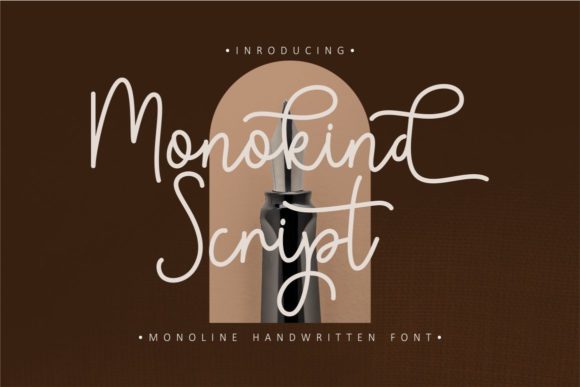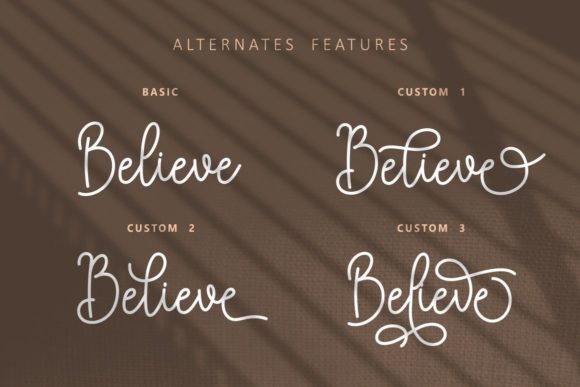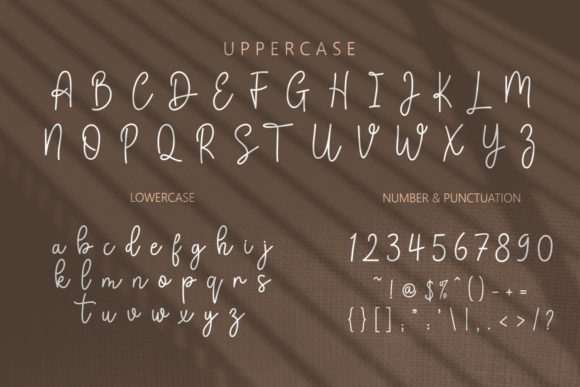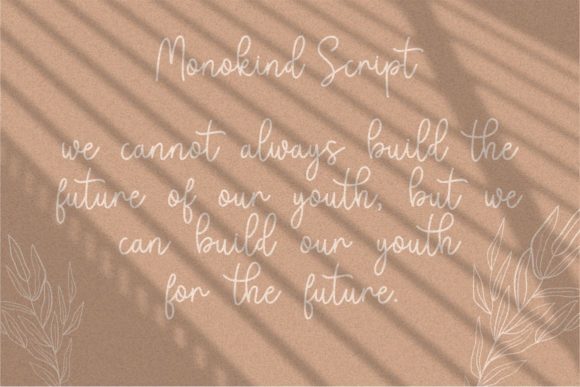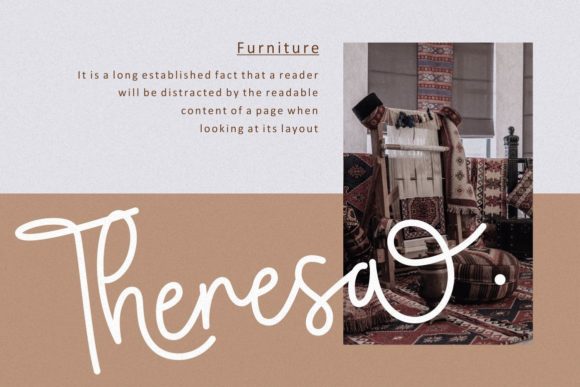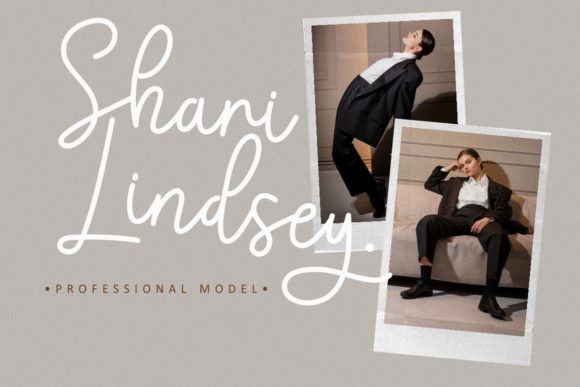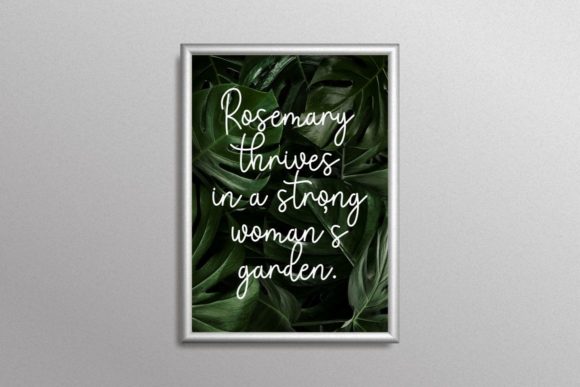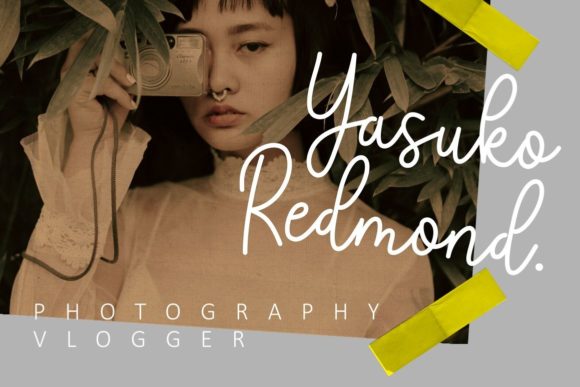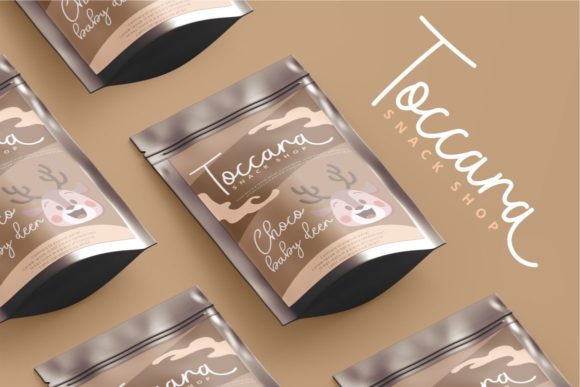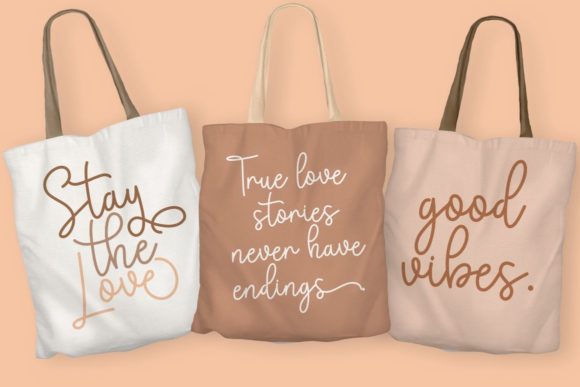
Monokind Script Font
About Monokind Script Font
Monokind Script is a relaxed, adaptable and friendly handwritten font. Its natural and unique style makes it incredibly fitting to a large pool of designs. This font is PUA encoded which means you can access all of the glyphs and swashes with ease!